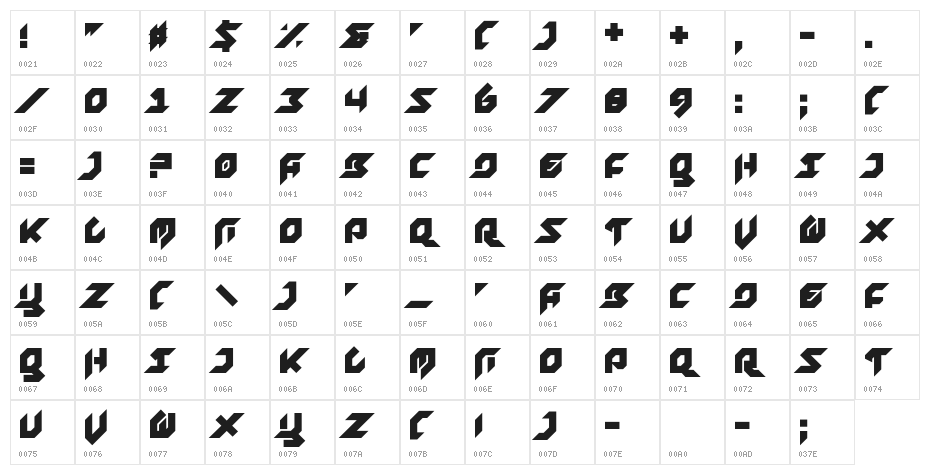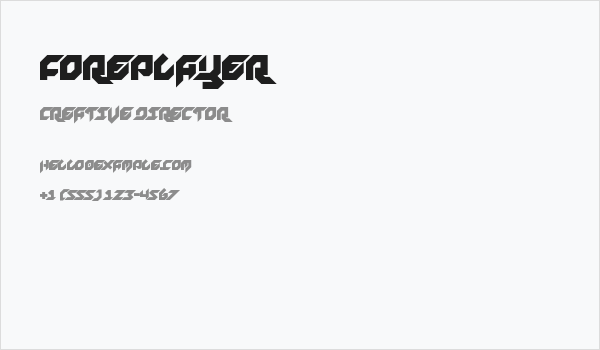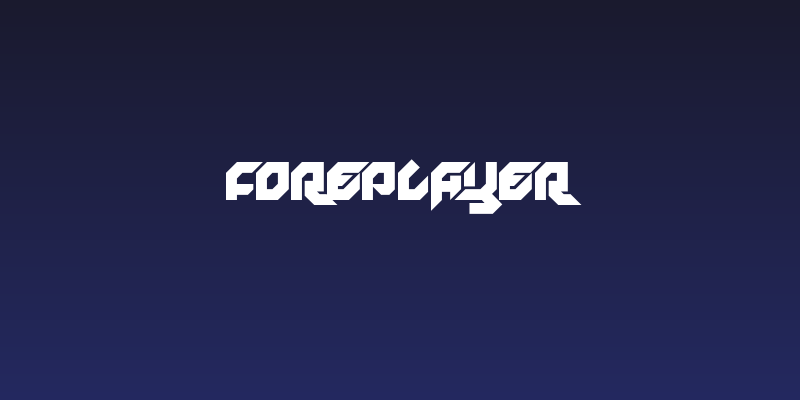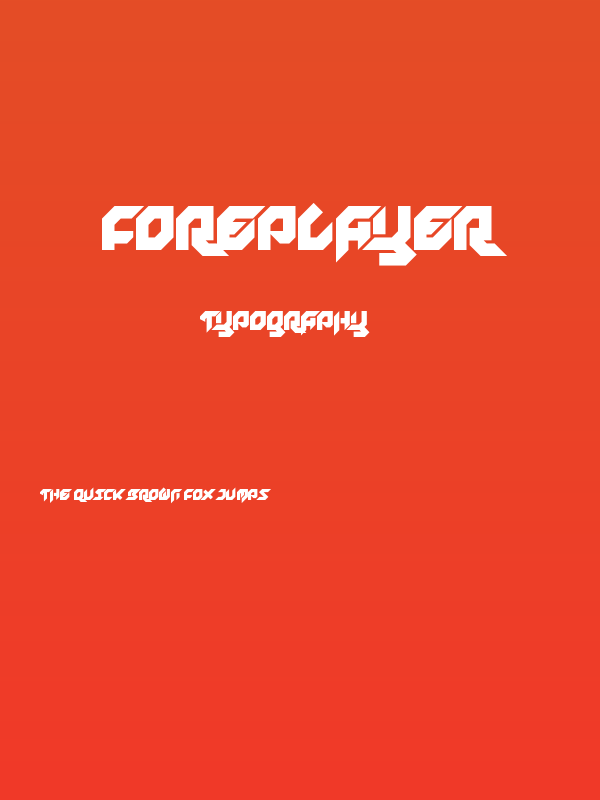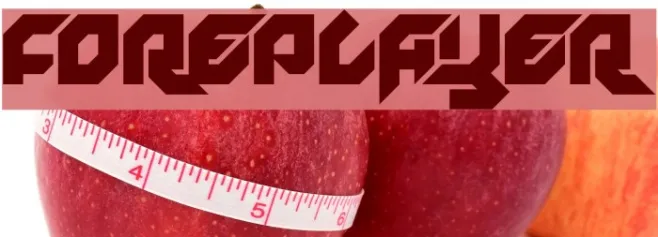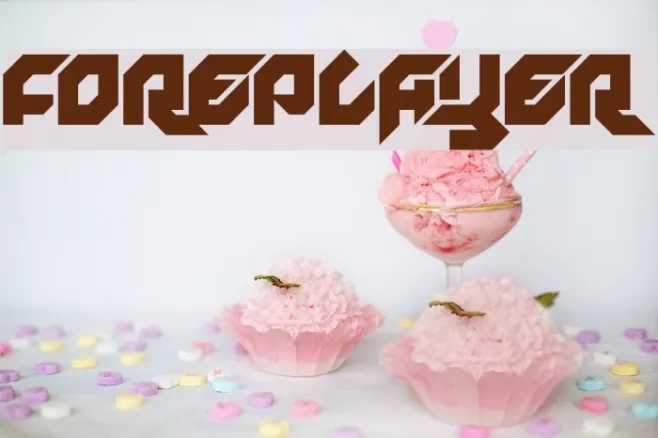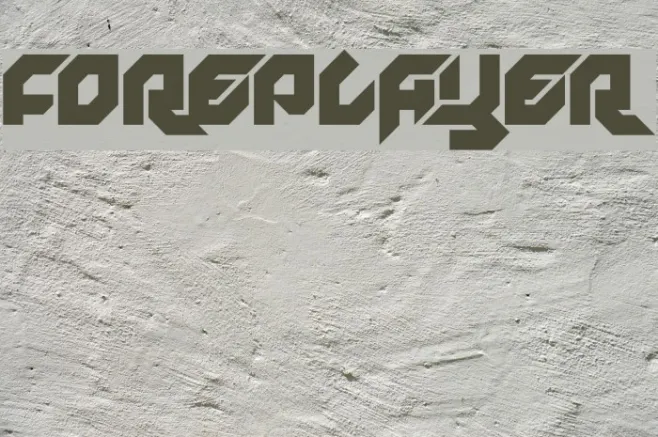
Foreplayer Font
Foreplayer Description
This font features a bold, angular design with sharp edges and geometric shapes, creating a futuristic and dynamic appearance. The characters are constructed with a combination of straight lines and acute angles, giving them a distinct, edgy look. The uppercase and lowercase letters maintain a consistent style, with the lowercase being slightly smaller but equally bold. Numbers and special characters follow the same design principles, ensuring uniformity across all glyphs. The overall impression is one of strength and modernity, making it suitable for projects that require a bold statement.
| Proposed Projects | Ideal for video game titles, sci-fi movie posters, tech branding, and any project needing a modern, edgy look. |